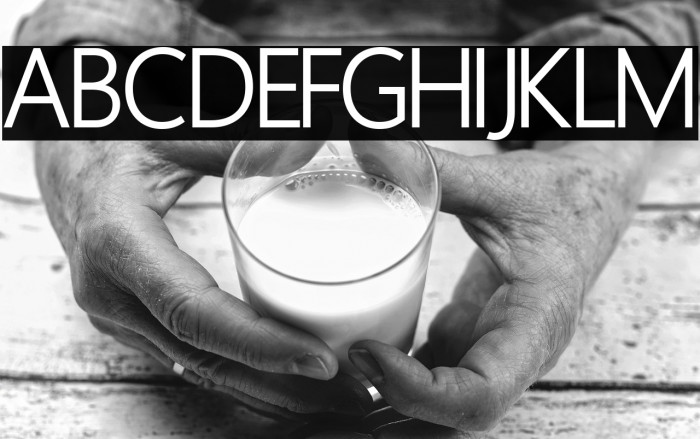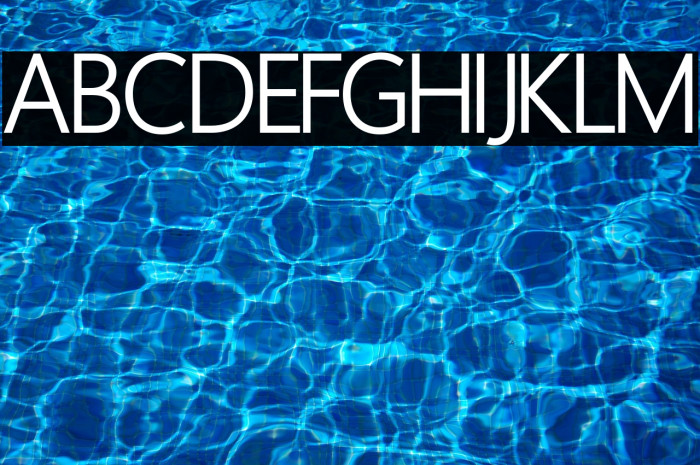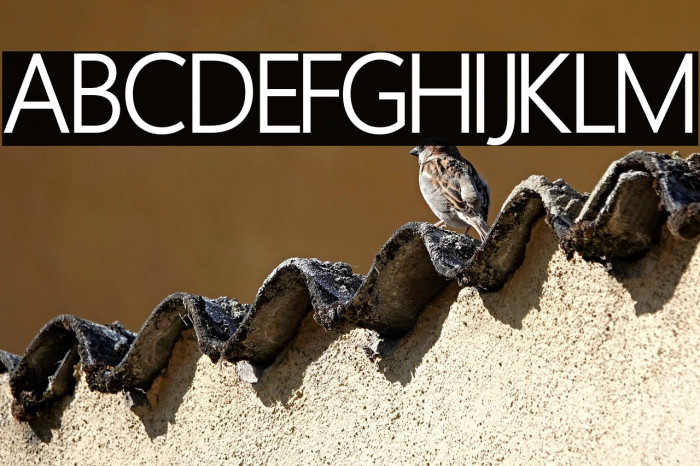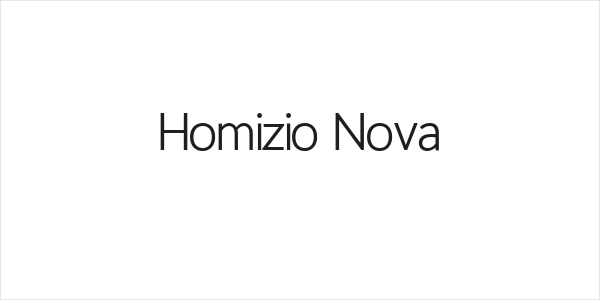
Homizio Nova Font
Homizio Nova Description
This font features a clean and modern sans-serif style with smooth curves and a geometric structure. The characters are well-balanced, offering a harmonious appearance that is both professional and approachable. The uppercase and lowercase letters maintain a consistent height and width, providing a uniform look. The numerals are clear and easily distinguishable, making them suitable for various applications. Special characters are included, enhancing the font's versatility. The overall design is minimalistic, focusing on readability and simplicity, making it ideal for contemporary design projects.